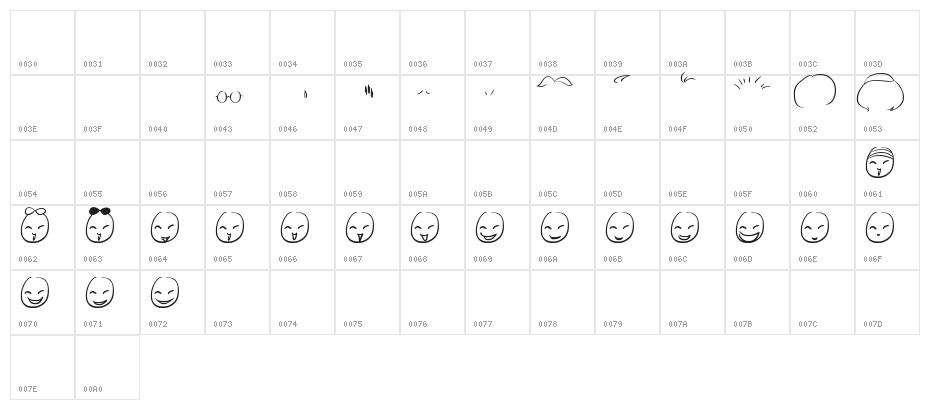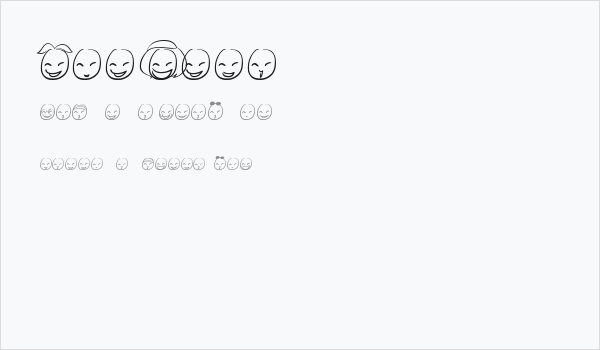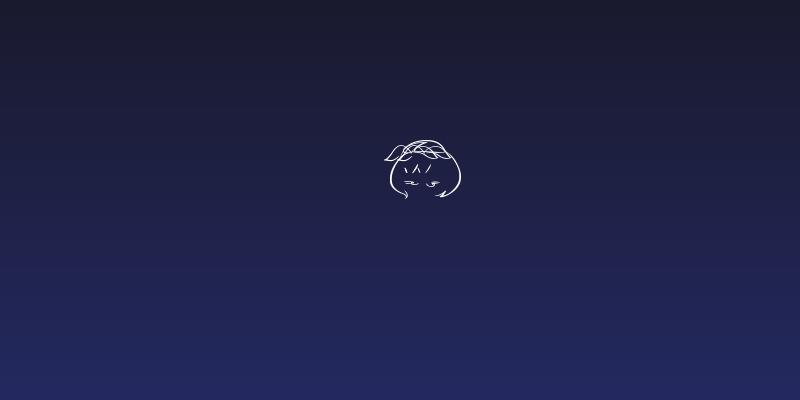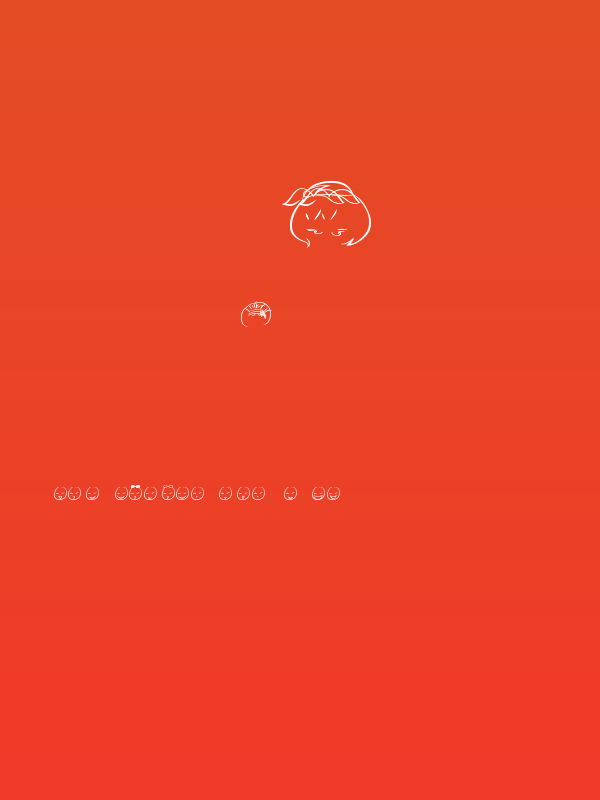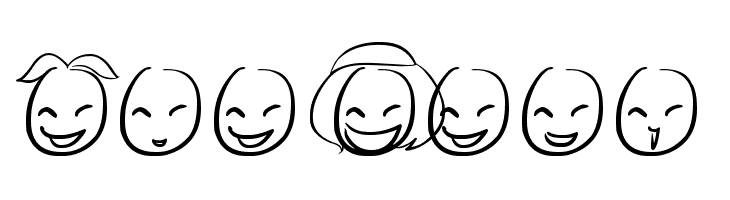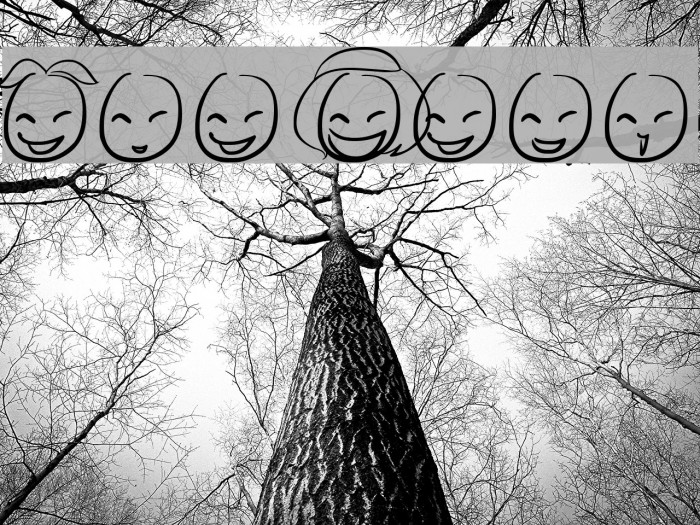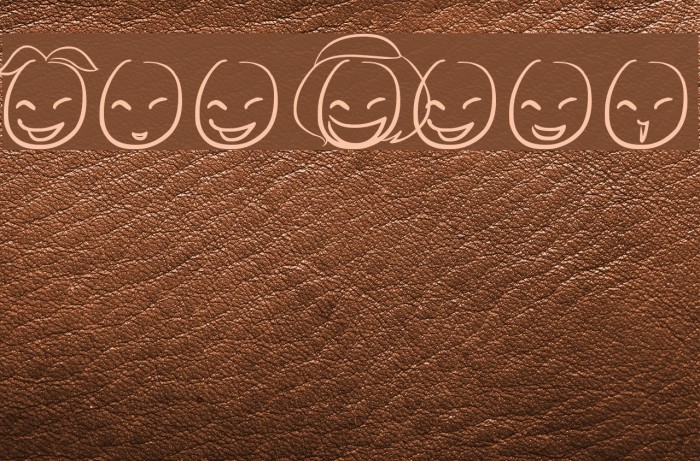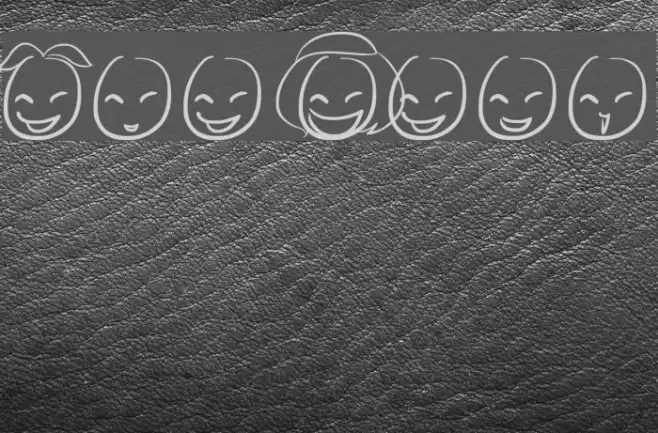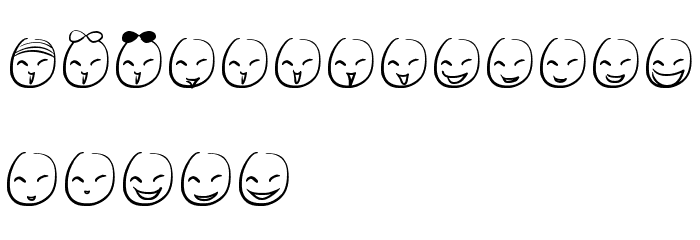
Mini Smile Font
Mini Smile Description
A playful, hand-drawn decorative font featuring a variety of expressive smiley faces as characters, each with unique facial expressions and accessories, giving a whimsical and friendly appearance.
| Overall Style | Playful, Whimsical, Decorative |
| Use Case | Logos, Headlines, Posters, Children’s content |
| Proposed Projects | Children’s books, party invitations, greeting cards, playful branding, educational materials. |